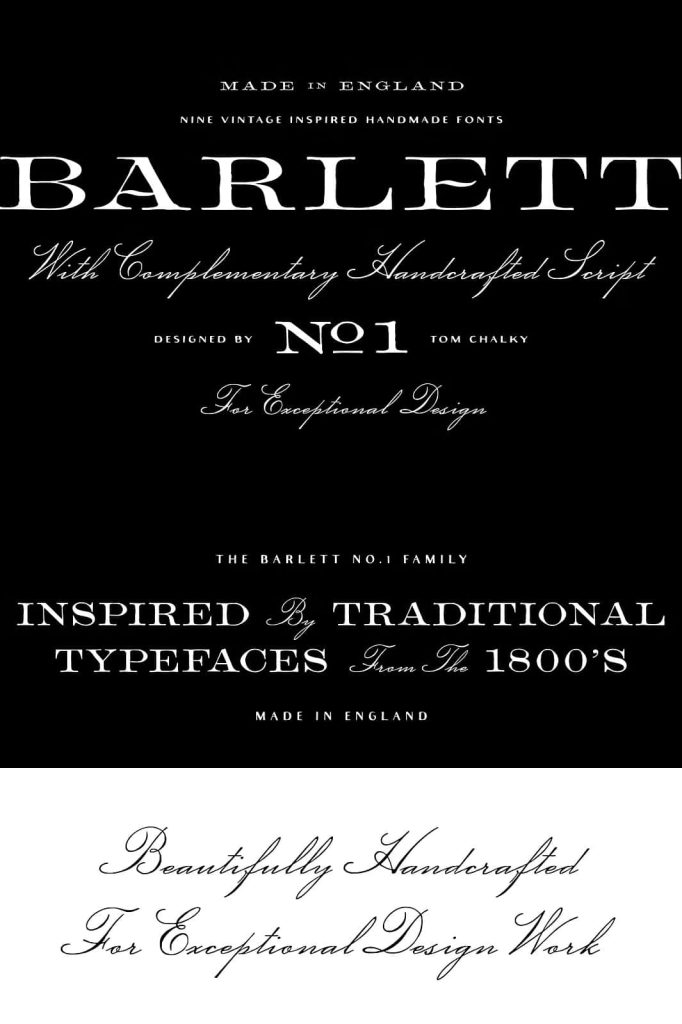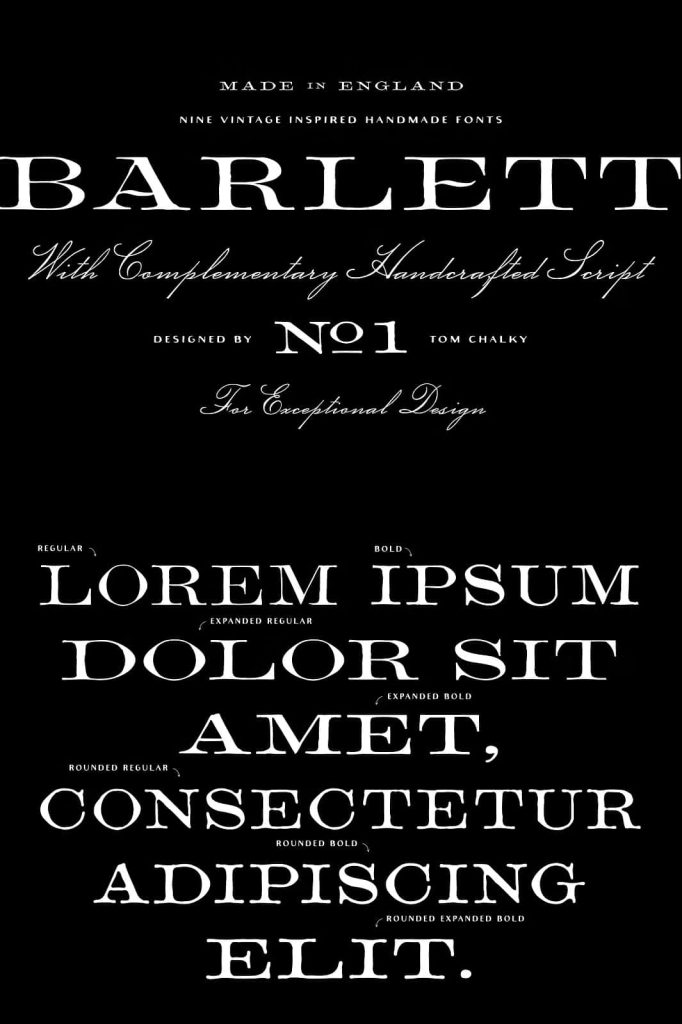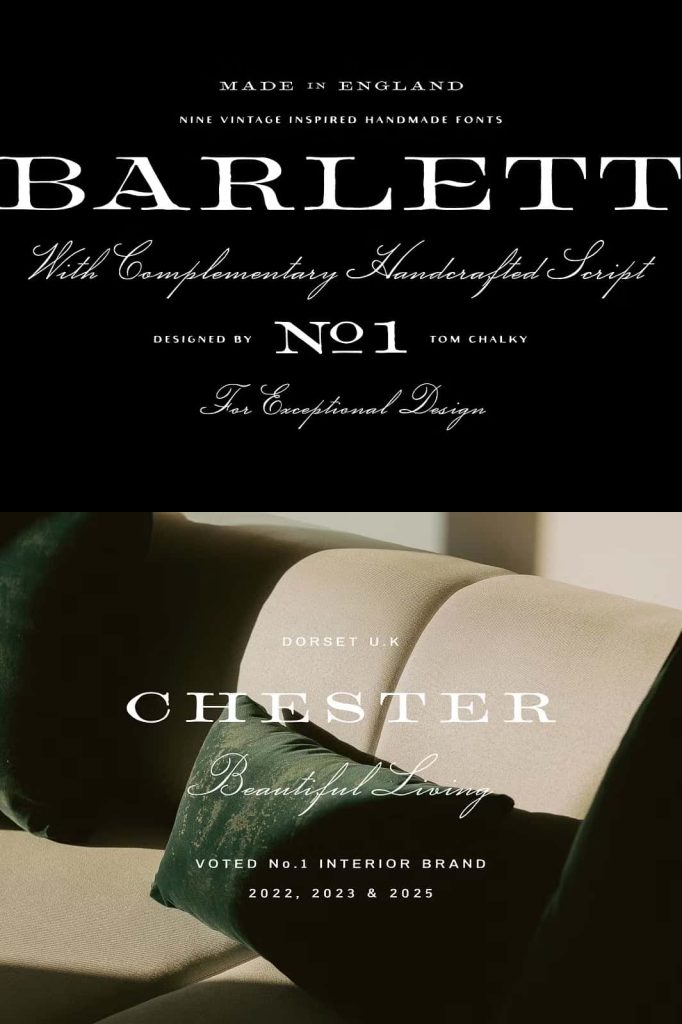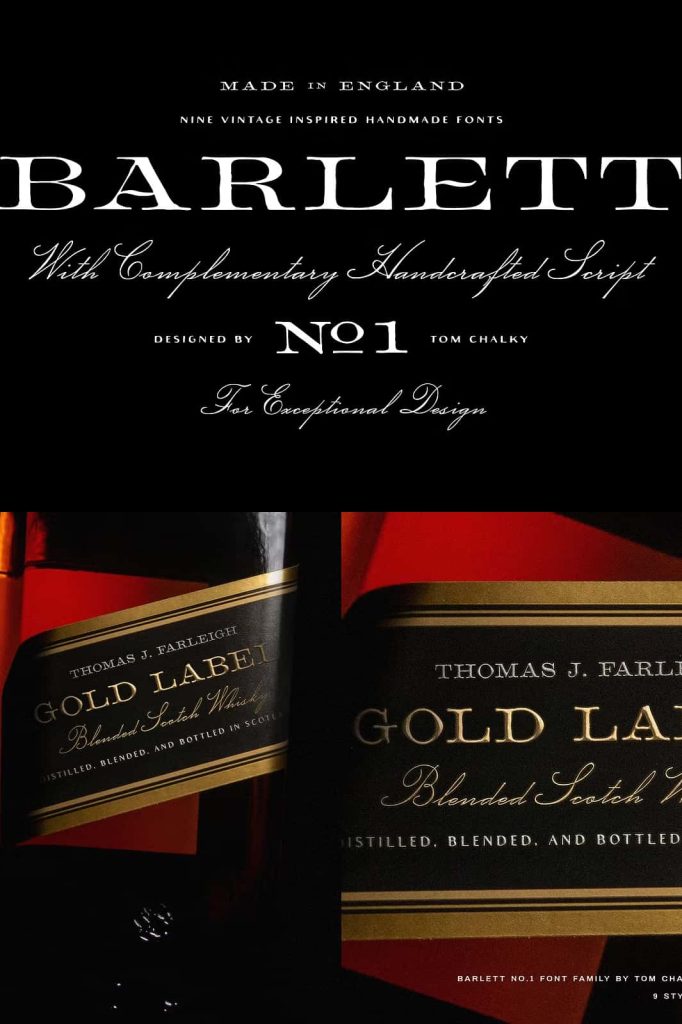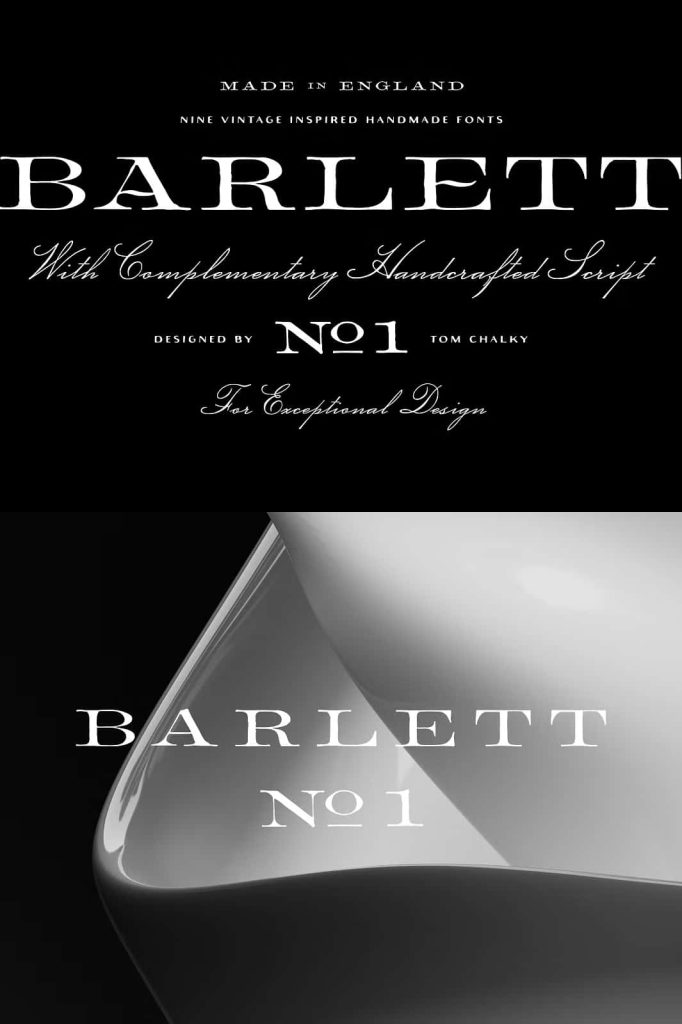
Barlett No.1 is a premium handcrafted font family that blends traditional charm with modern functionality. Inspired by 1800s English typefaces, this 9-style collection includes a range of serif styles and an elegant complementary script